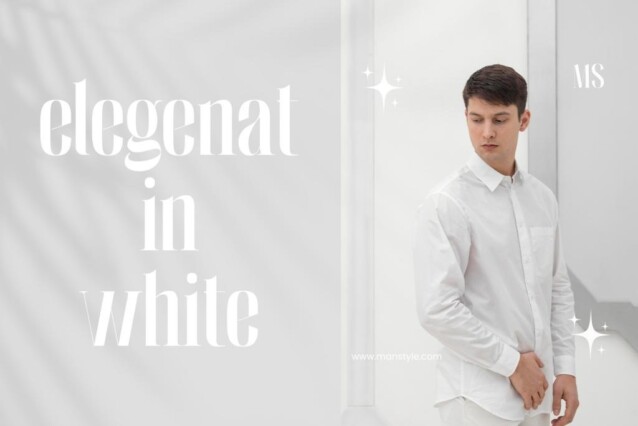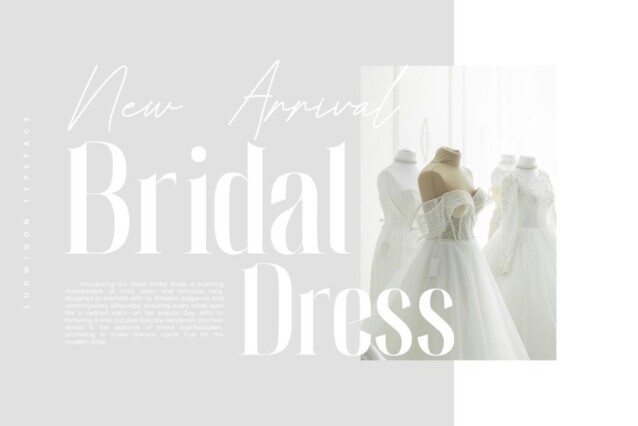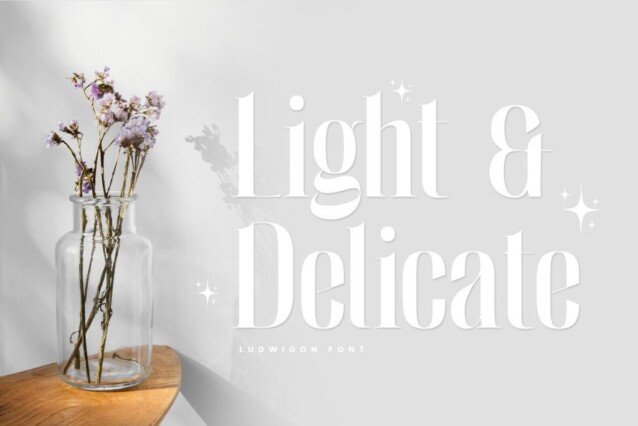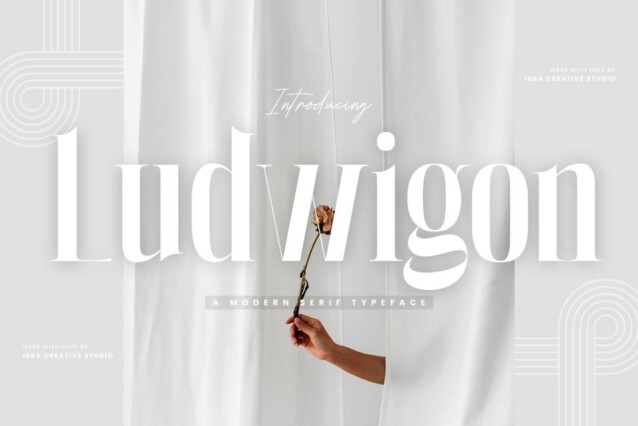
Ludwigon Font
Ludwigon Font is an editorial serif font manufactured by IbraCreative. It beautifully combines a vintage look with a modern flair. With its gracefully elongated serifs and refined letterforms, Ludwigon exudes sophistication and readability, making it a versatile choice for a wide range of applications. Its clean lines and balanced proportions lend an air of classic refinement, while subtle design nuances, such as tapered stroke endings and graceful curves, infuse it with a touch of contemporary flair. Ludwigon strikes a harmonious balance between tradition and innovation, making it a compelling choice for projects seeking a timeless yet fresh typographic aesthetic.